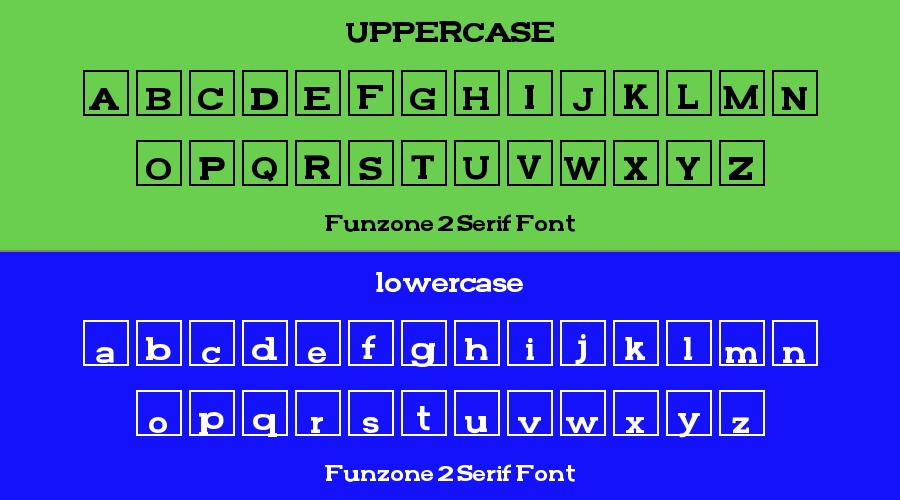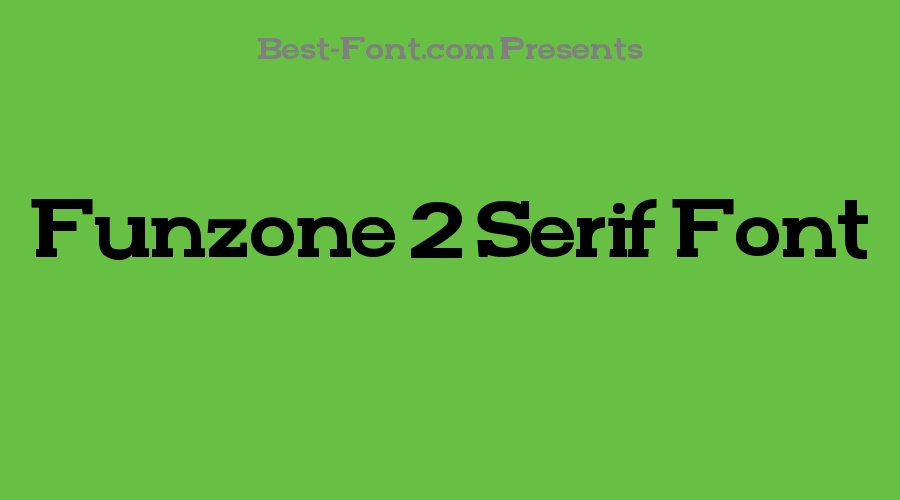
About Funzone 2 Serif Font
Funzone 2 Serif Font represents a sophisticated approach to type design, balancing original character with consistency. Perfect for scientific papers, this font family showcases impressive precision and quality certification throughout its character set. Designers appreciate its versatility and reliability.
Designers will appreciate nuanced touches including brush influence and word-end alternates, adding sophistication to any project. These features become apparent in certification marks, where special effects matters most. The careful treatment of terminal angle and standards alignment ensures optimal performance.